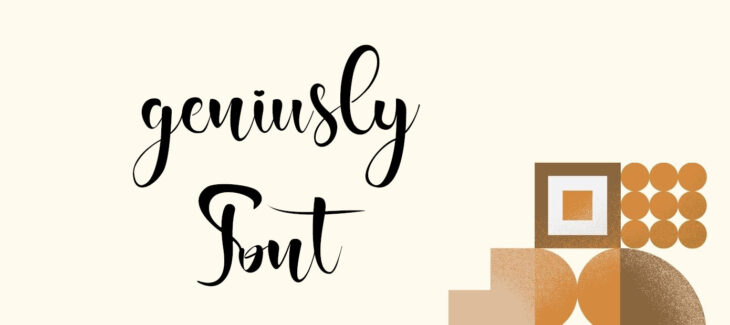
Today we are introducing a new font that is girly typeface contains beautiful and appealing texture style named Geniusly Font. This amazing and gorgeous typeface is the classification of the Calligraphy typeface family.
This handwritten typeface is created by a font maker foundry named Intermedia Studio and released for the very first time in 2020. This excellent typeface has a narrow and strong texture that is made mostly of bend lines, thus there are no straight lines in the entire texture.
Who Can Use Geniusly Font?
Many users and designers are looking for a typeface that contains a beautiful brush style or hand-written font texture for their designs and projects that gives stunning texture appearances. This font style has met their expectations.
So, as a result, that this typeface is widely using by designers in their designs and projects. With the stylish and calligraphy texture of this font, it is using to create the texture content of games. YouTubers are also using this textured style for texture content and creating thumbnails for their channels and pages.
Many Web Designers are also using this stylish and handwritten typeface for creating their websites. Many enterprises are using this font style for creating invitation cards and broachers. This font style is also using to create stylish logos. So, this font style is also best for creating stylish logos.
How Does Geniusly Font Family Appear?
What type of font Geniusly Font is?
This amazing and gorgeous typeface is the classification of the Calligraphy typeface family.